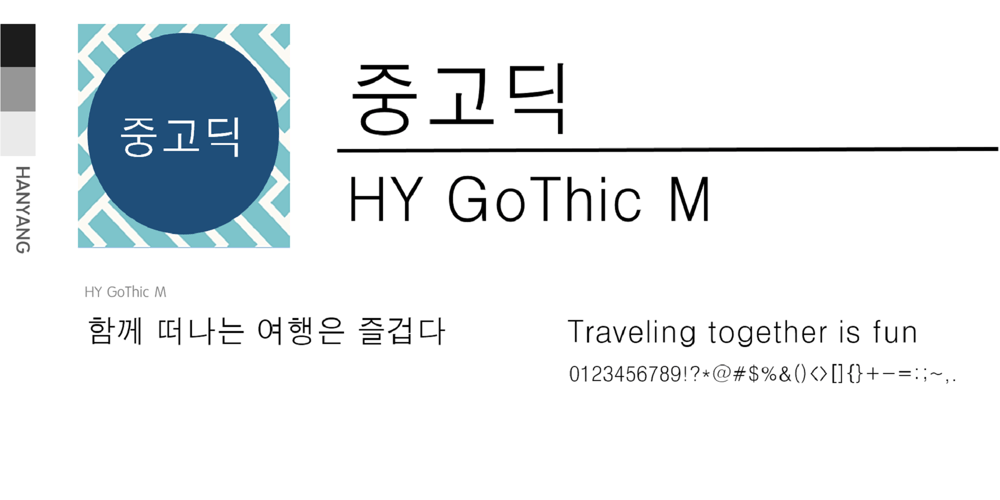
HY Gothic M Font Family was designed by font hy and published by HY Font. HY Gothic M contains 1 styles and family package options. The HY Gothic font was created so that the strokes of the type are placed in the appropriate positions to highlight the beauty of the blank space.The strong and modern design of the HY Gothic font is suitable for body text in magazines, newspapers, books, etc.The strong feel of HY Gothic font is suitable for presentation materials. It attracts a lot of attention and can create an emphasis effect.